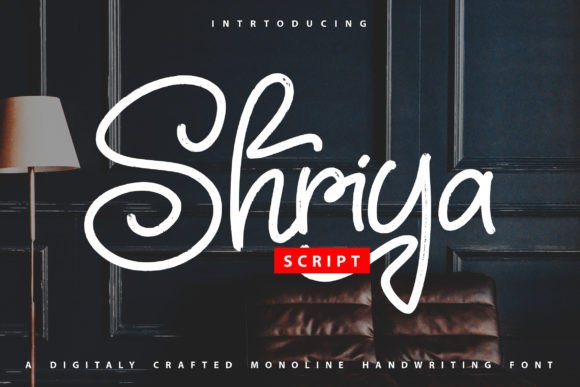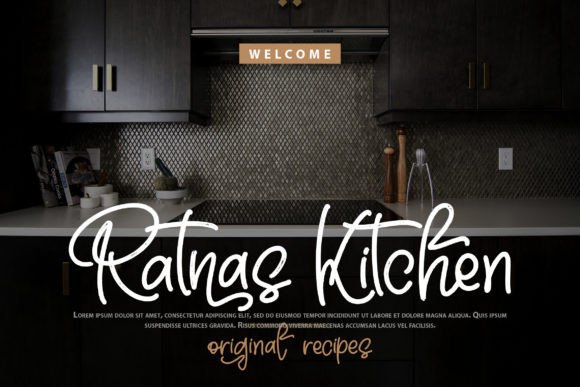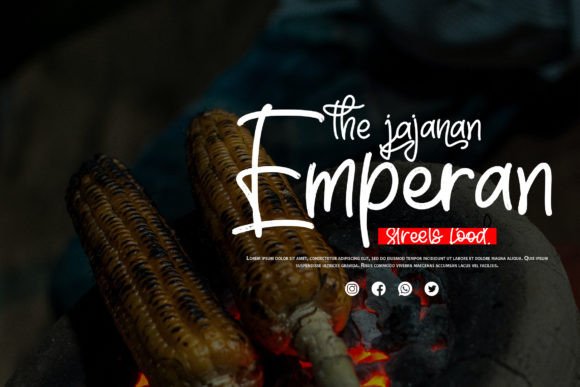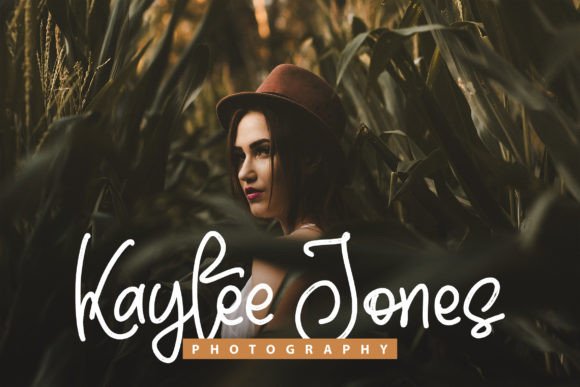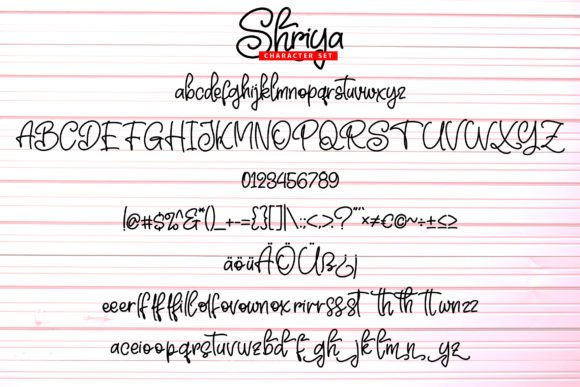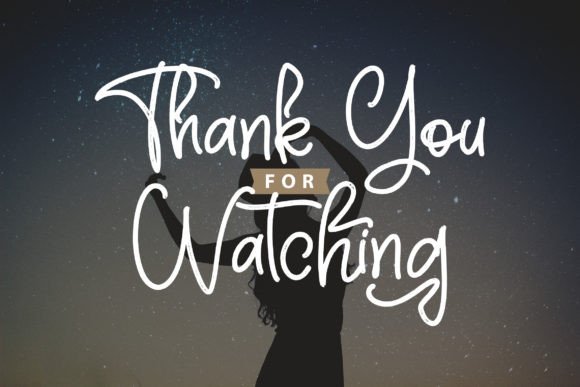
Shriya Font
About Shriya Font
Shriya is a beautiful and light handwritten font that carries a unique feel and delivers a stunning impact. Designed to add a touch of luxury to any project, this font brings forth a sense of elegance and sophistication. Notably, Shriya is PUA encoded, allowing easy access to its remarkable glyphs and ligatures, providing versatility and customization for your designs.
The beauty and lightness of Shriya are immediately apparent, making it a wonderful choice for projects that require a graceful and refined appearance. The handwritten style adds a personal touch, creating a unique and captivating impact on your designs.
The luxury spark that Shriya contributes is perfect for elevating the visual appeal of your projects. Whether you’re working on branding, invitations, or any creative endeavor, this font exudes a sense of opulence that can enhance the overall impression of your designs.
The PUA encoding of Shriya is a valuable feature, ensuring easy access to its diverse range of glyphs and ligatures. This user-friendly quality empowers designers to customize and personalize their designs effortlessly, allowing for a seamless and tailored design experience.
Incorporating Shriya into your projects is an invitation to infuse them with beauty, lightness, and a touch of luxury. This handwritten font stands as a powerful design element, ready to enhance your creative vision and leave a lasting impact on your audience.
In summary, Shriya is more than just a font; it’s a beautiful and light design asset that adds a luxurious spark to your projects. With its PUA encoding, Shriya offers a seamless and personalized design experience, making it an ideal choice for designers aiming to create visually striking and sophisticated designs.